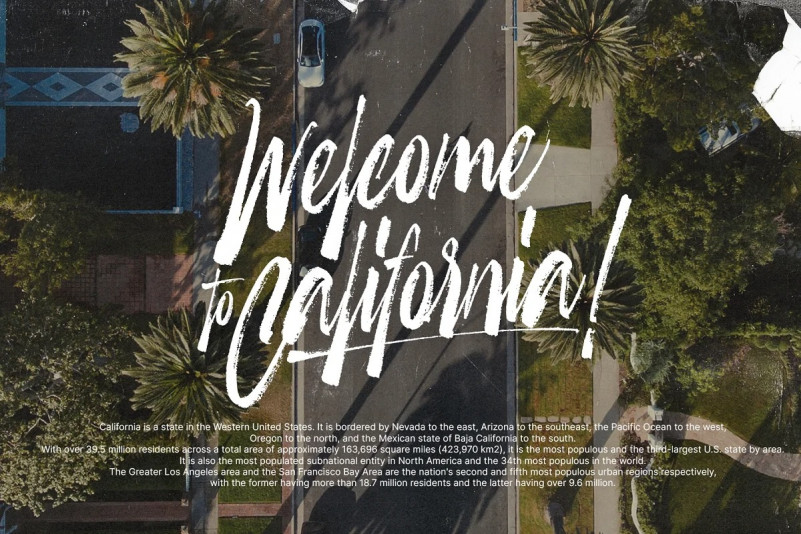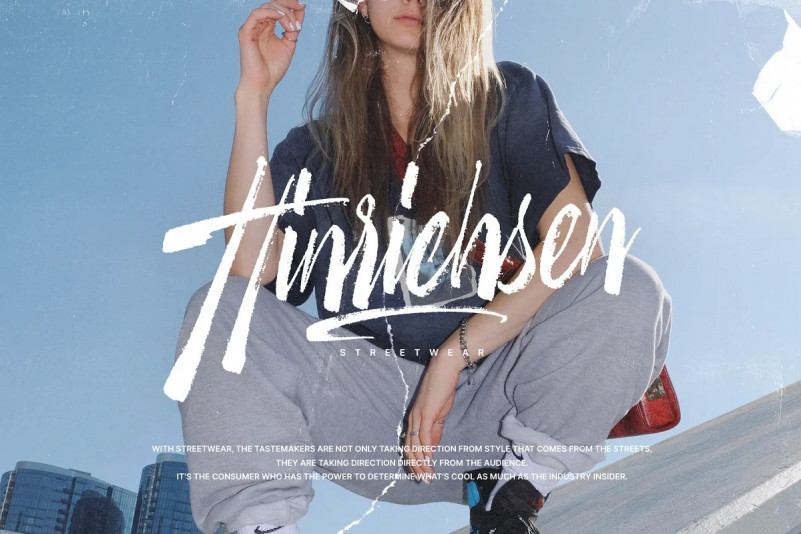
Vanville Brush Font
Introducing “Vanville” – A brand new “handmade” script/calligraphy font.
Best match for logos, headers, quotes, product packaging, greeting cards, business cards and other creative possibilities.
Create an extraordinary handmade results by using Vanville Script Font!